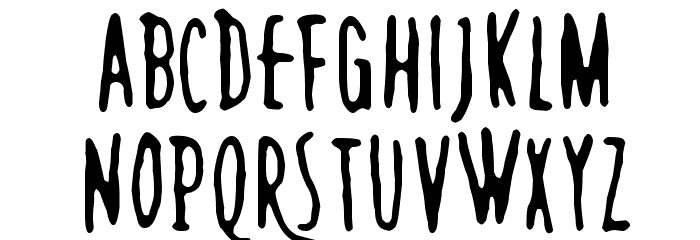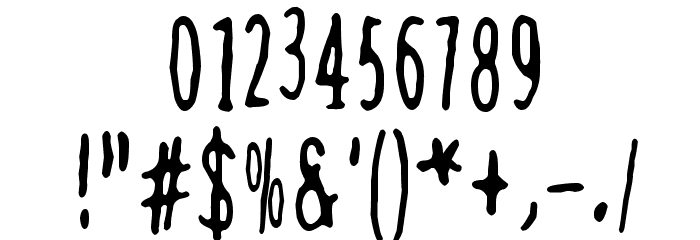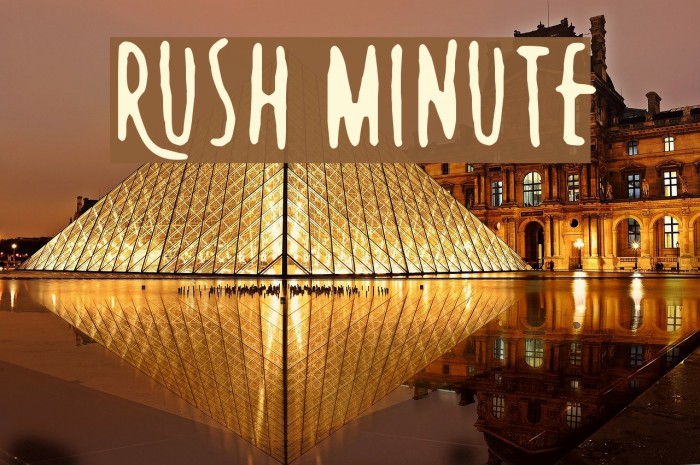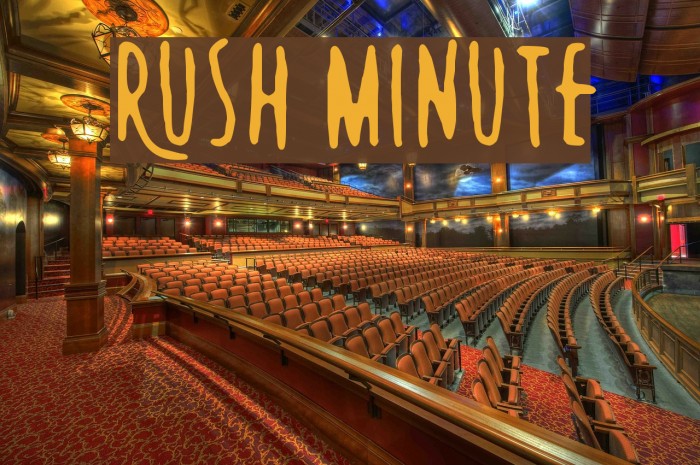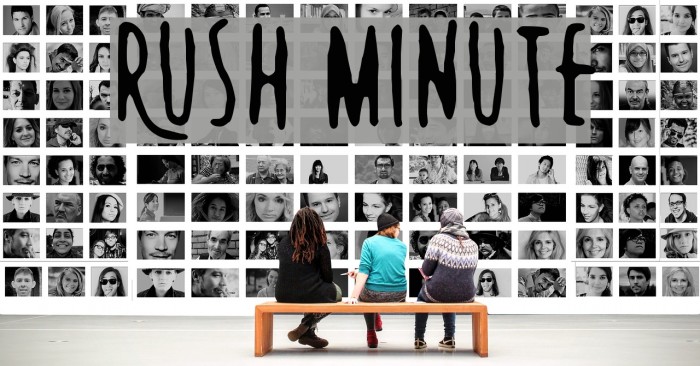
Rush Minute Font
This font features a playful and energetic style, characterized by its irregular and hand-drawn appearance. The letters have a slightly uneven baseline, giving them a dynamic and lively feel. The strokes are bold and somewhat irregular, contributing to a casual and informal aesthetic. This font captures a sense of spontaneity and creativity, making it ideal for projects that require a personal touch. The numbers and special characters maintain the same whimsical style, ensuring consistency across all text elements.
A playful, hand-drawn font with bold, irregular strokes.
- Proposed Projects: Ideal for children's books, creative posters, casual branding, and playful invitations.
- Overall Style: Casual, Playful